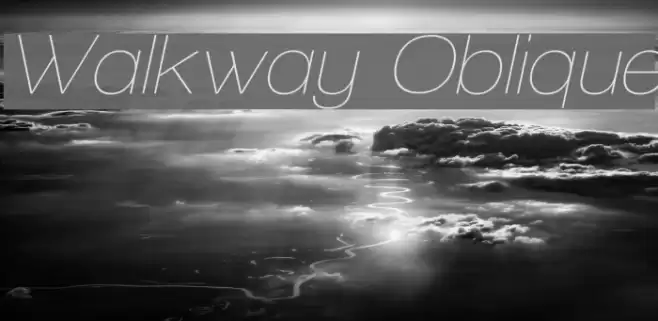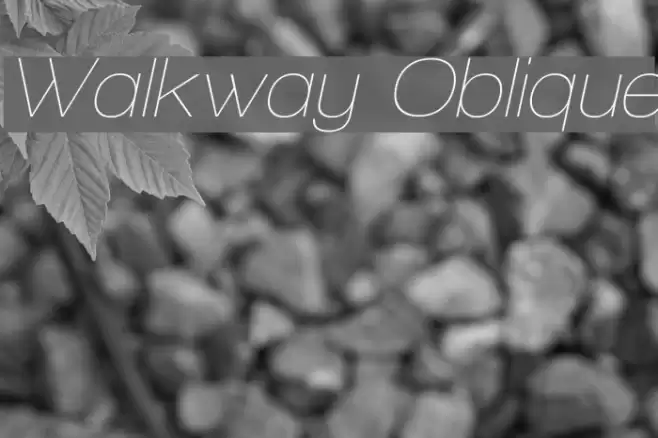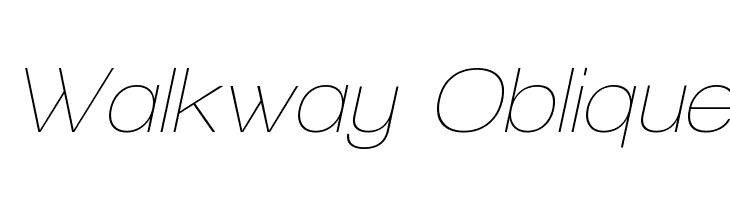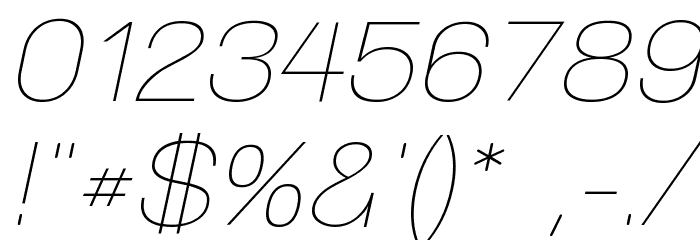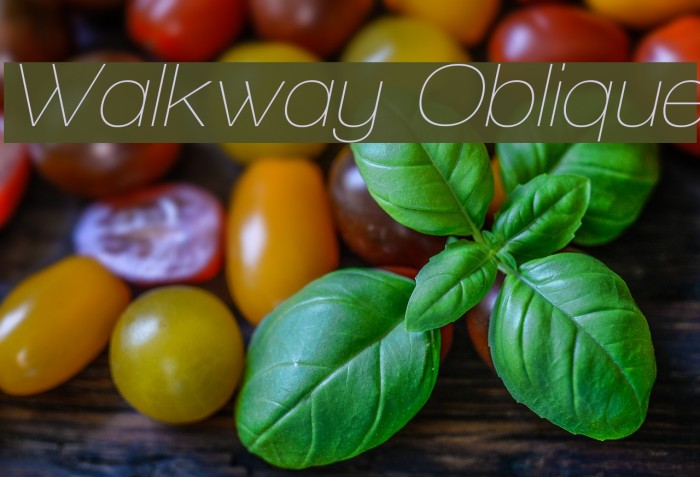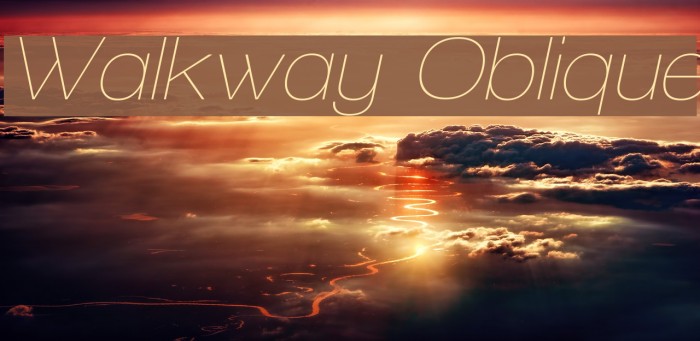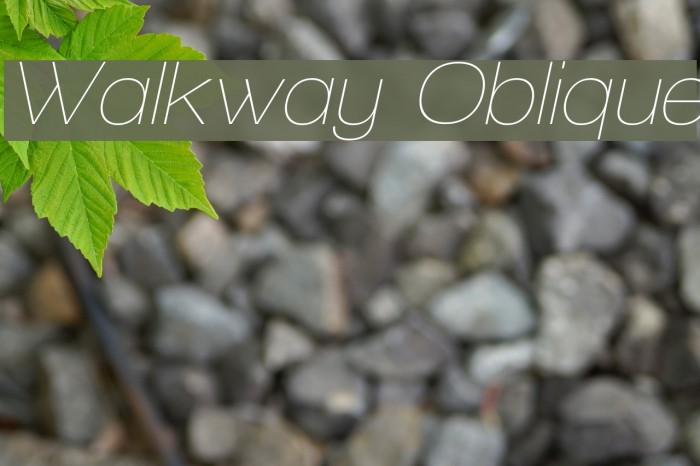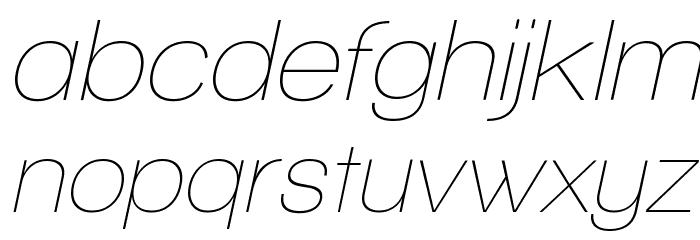
Walkway Oblique Font
Walkway Oblique Description
This font features a sleek, modern design with a distinct oblique style, giving it a dynamic and forward-leaning appearance. The characters are thin and elongated, with a consistent stroke width that adds to its minimalist aesthetic. The uppercase and lowercase letters maintain a uniform height, contributing to a clean and cohesive look. The numerals and special characters are designed to match the overall style, ensuring a harmonious appearance across all text elements. This font's simplicity and elegance make it suitable for a variety of design applications.
A sleek, modern oblique font with thin, elongated characters from Formal fonts.
- Proposed Projects: Ideal for modern branding, editorial design, digital interfaces, and minimalist posters.